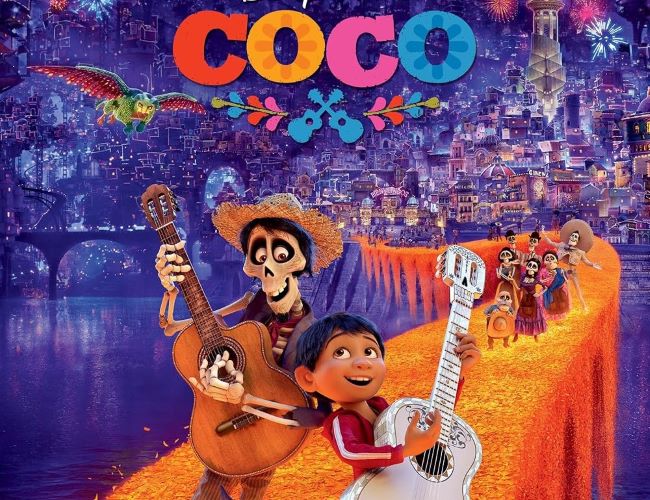
Coco Font
Coco Font bursts with marigold-bright energy through exuberant letterforms adorned with folkloric flourishes that honor ancestral memory. This typography dances like papel picado in the wind, weaving Mexican cultural pride into every curve and petal—visual fiesta that transforms letters into celebration, proving font design can carry the heartbeat of generations and traditions across borders.
In the movie’s title, the letters are decorated with vivid colors and floral patterns, inspired by Mexican art and Día de los Muertos traditions. The Coco font combines a rustic, hand-crafted look with a festive touch, symbolizing both heritage and joy. Designers often look to this type of style when they want to capture celebration, culture, or heartfelt storytelling.
The official font Rockwell Extra Bold was custom-made for the movie , but there are excellent fan-made alternatives available. The most popular replica is called ChunkFive Ex, which mirrors the lettering used in the film logo. Other free alternatives such as Catrina or Fiesta also capture that decorative and festive aesthetic.
Coco Font illuminates Día de los Muertos events, Latin cuisine branding, family reunion invitations, and cultural heritage projects—where typography becomes ofrenda, remembering the departed while celebrating life’s beautiful chaos.